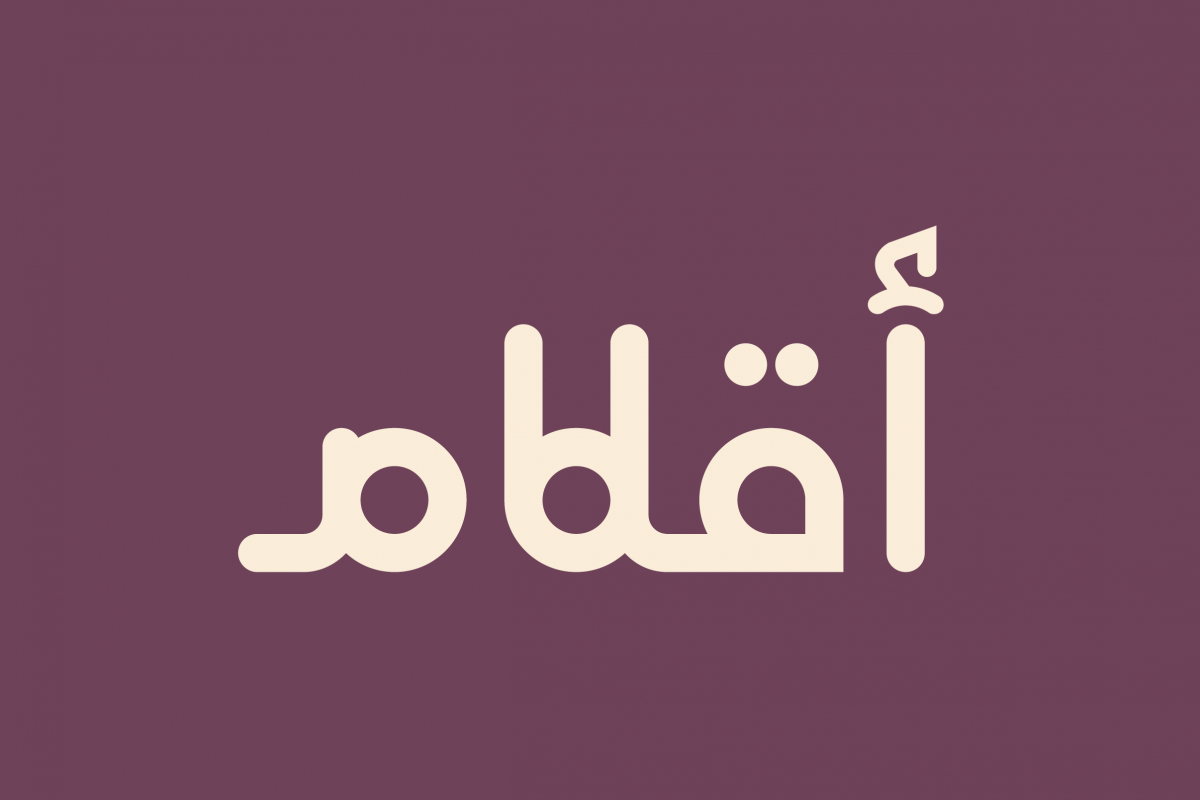
Aqlaam - Arabic Typeface
Aqlaam is an Arabic typeface with modern letterform design and rounded terminals. This typeface is suitable for web design, advertising and publication. Aqlaam comes in 6 different weights (thin, light, regular, medium, bold and outlined bold).